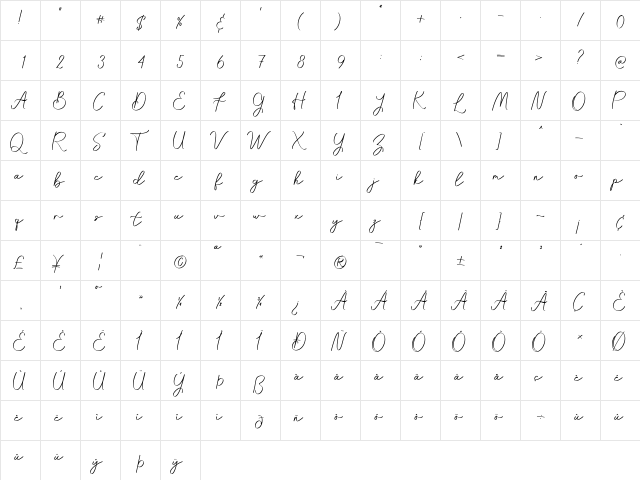
Arlista Regular
Design Context for Arlista Typeface
Arlista is a composed and adaptable typeface that performs quietly and consistently across a wide range of design contexts.